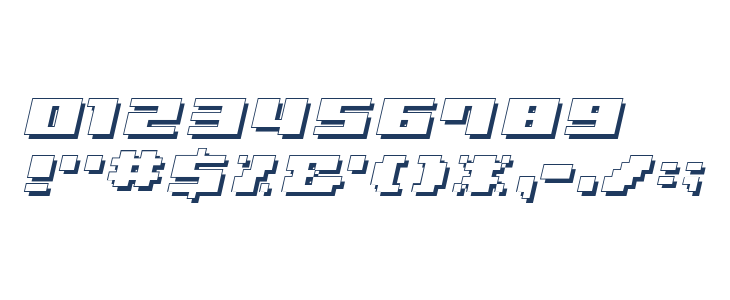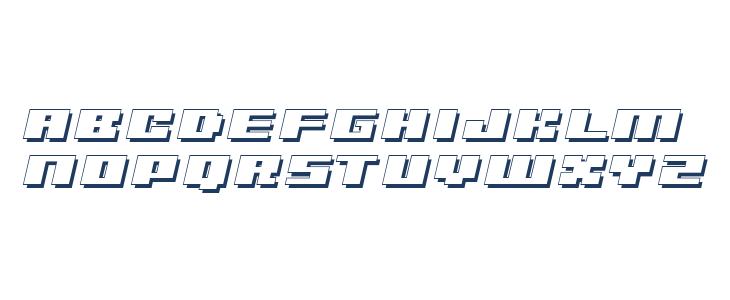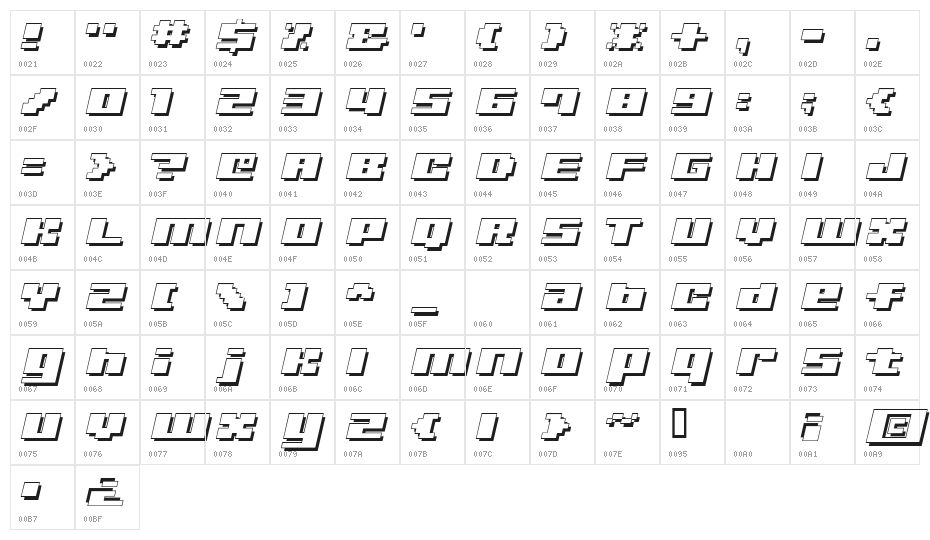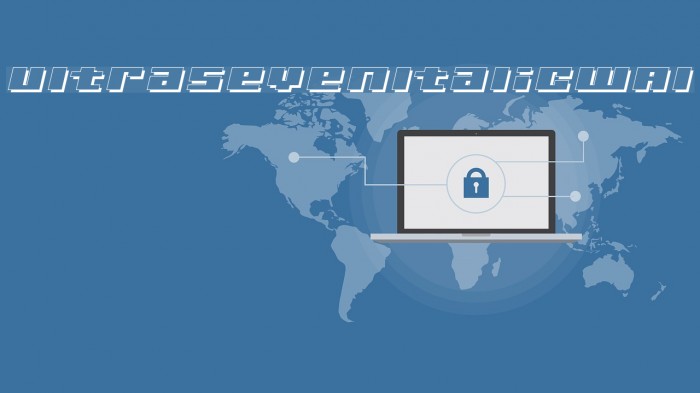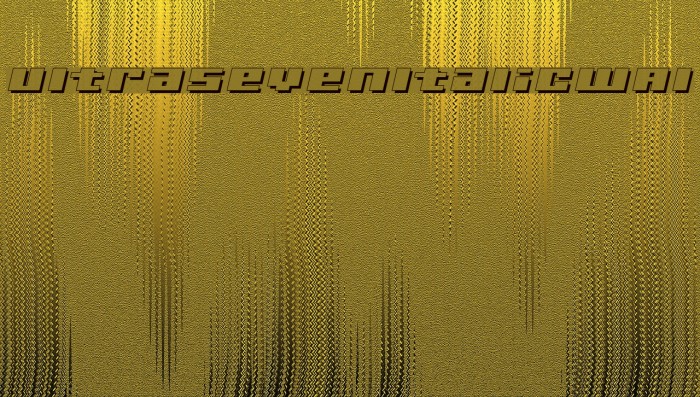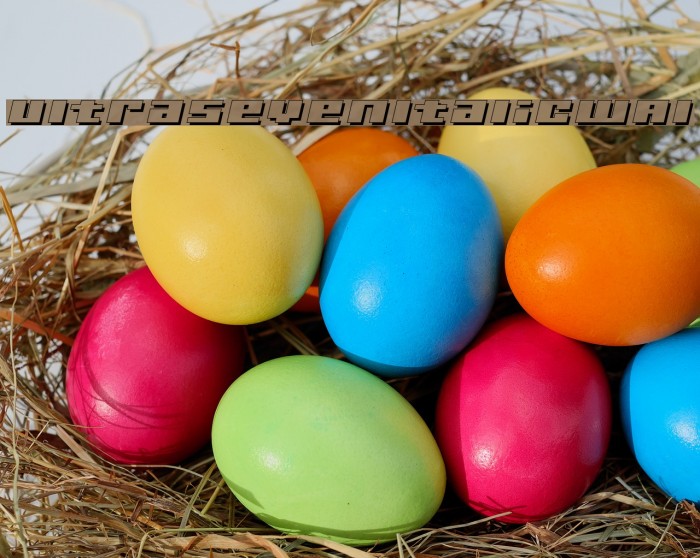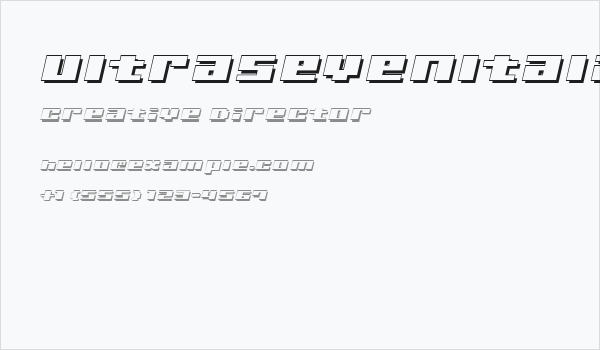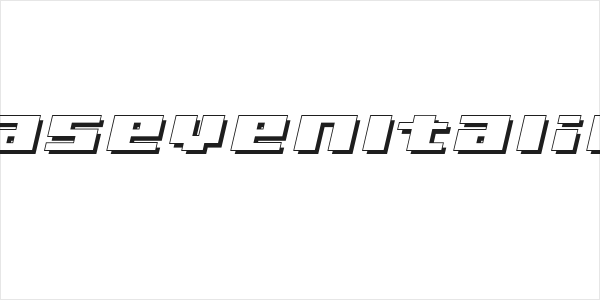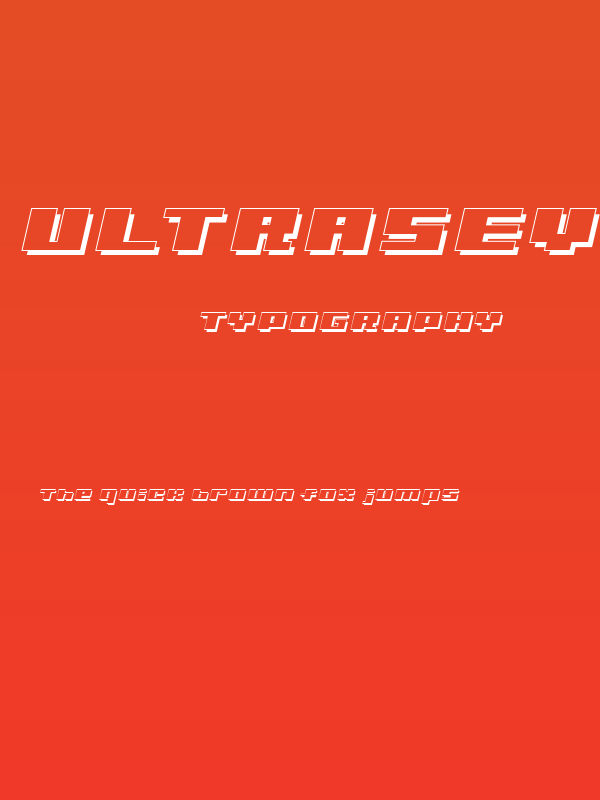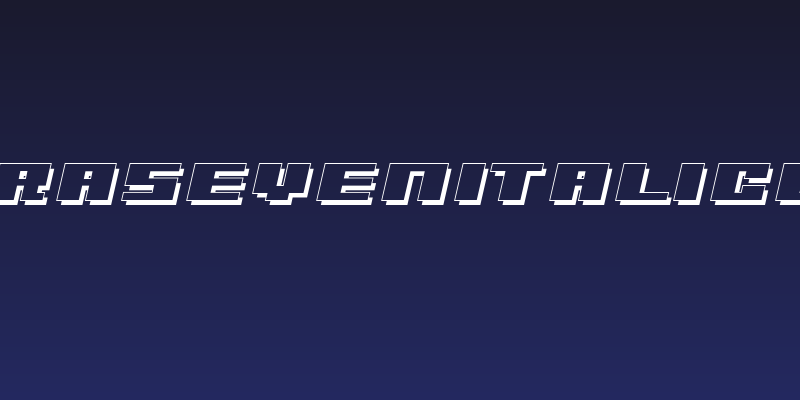
UltraSevenItalicWAl Font
UltraSevenItalicWAl Description
This font features a bold, italicized style with a distinct three-dimensional effect. The characters are outlined with a shadow, giving them a blocky, futuristic appearance. The uppercase and lowercase letters maintain a consistent geometric form, with sharp angles and clean lines. Numbers and special characters follow the same design principles, ensuring uniformity across all glyphs. The font's unique style makes it stand out, ideal for projects that require a modern and edgy look.
| Proposed Projects | Ideal for video game titles, tech-themed posters, or futuristic branding projects. |